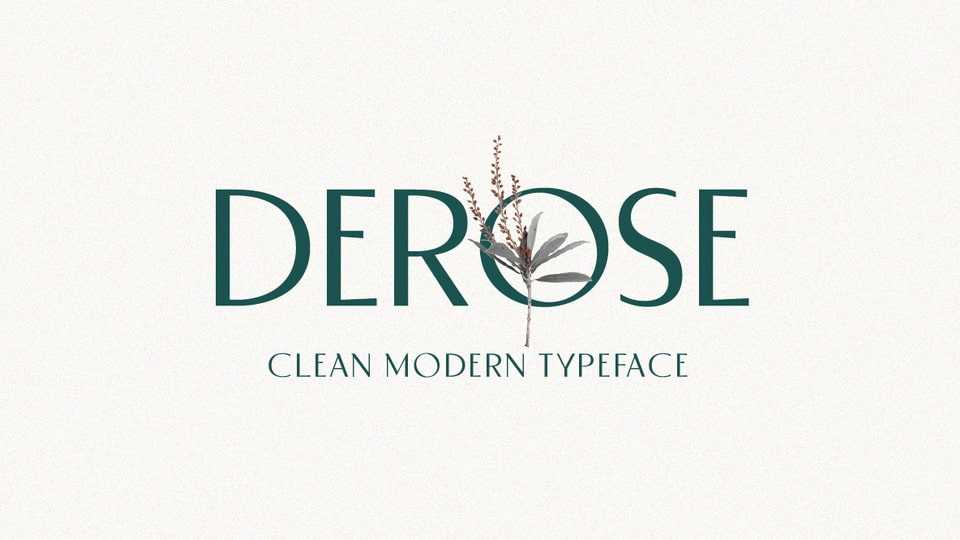
Download Derose font, a sans serif typeface featuring a clean and fresh modern style. With a minimalist and sharp design, this font gives off a clean and professional impression.
Designer: Yukita Creative